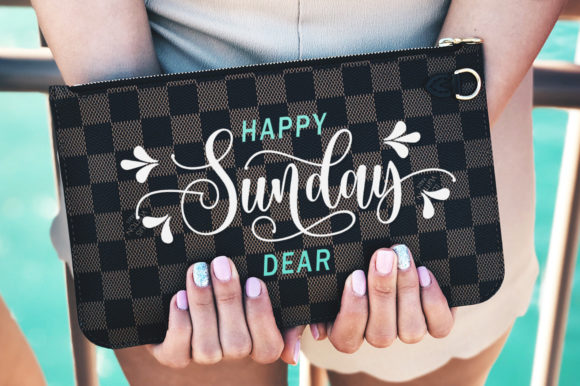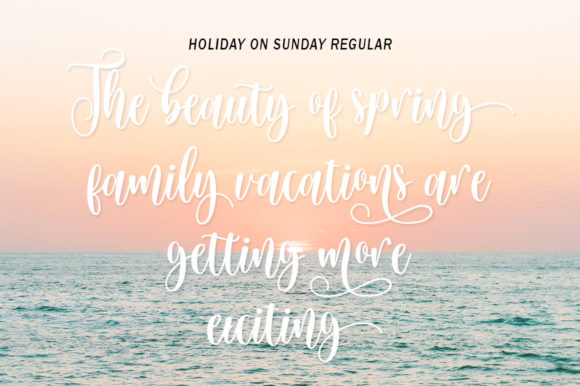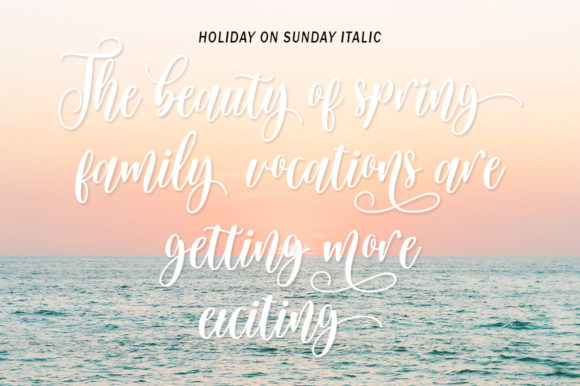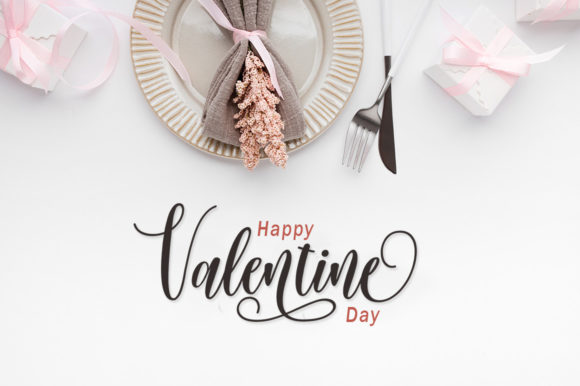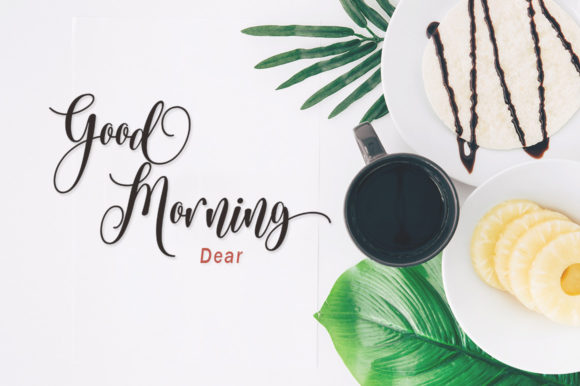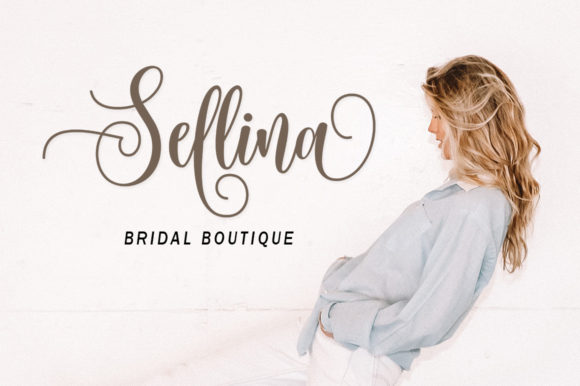
Introduction to Holiday on Sunday Font
As a designer, there’s nothing quite like the thrill of bringing a creative project to life. Whether it’s a wedding invitation, a birthday card, or a social media graphic, the right font can make all the difference. And that’s exactly what the Holiday on Sunday Font does – it adds a touch of luxury and whimsy to any design, making it perfect for special occasions.
With its romantic and sweet calligraphy style, the Holiday on Sunday Font is a game-changer for designers looking to elevate their work. And the best part? It’s a high-quality, free download that’s available to anyone who needs it. Whether you’re working on a commercial project or just a fun side hustle, this font is a valuable design resource that’s sure to impress.
Key Features of Holiday on Sunday Font
- Unique, hand-drawn style with a transparent background, allowing for flexibility in design.
- Font size: 5,000+ glyphs, covering a wide range of languages and characters.
- Perfect for creative projects requiring a playful, whimsical touch, such as greeting cards, posters, and invitations.
Honest Review: Holiday on Sunday Font
I recently stumbled upon the Holiday on Sunday Font, a free download that I was excited to test in my latest design project. As a designer, I’m always on the lookout for high-quality design resources that can elevate my creative work. This font did not disappoint.
- ✨ Unique Design: The Holiday on Sunday Font boasts a distinctive and quirky design that’s perfect for adding a touch of personality to your project.
- ✨ High-Quality Raster: The font’s raster version is crisp and clear, making it ideal for both digital and print applications.
- ✨ Transparent Background: The font’s transparent background allows for seamless integration with your design, giving you complete control over the composition.
- ⚠️ Limited Character Set: The font only includes a limited character set, which may not be suitable for projects that require a wide range of characters.
- ⚠️ No Italic or Bold Options: The font does not offer italic or bold versions, which may limit its versatility in certain design applications.
Overall, I was impressed with the Holiday on Sunday Font’s unique design and high-quality raster. While it has some limitations, it’s a valuable addition to any designer’s toolkit, especially for free. I’d definitely recommend it for creative projects that require a distinctive and eye-catching font.